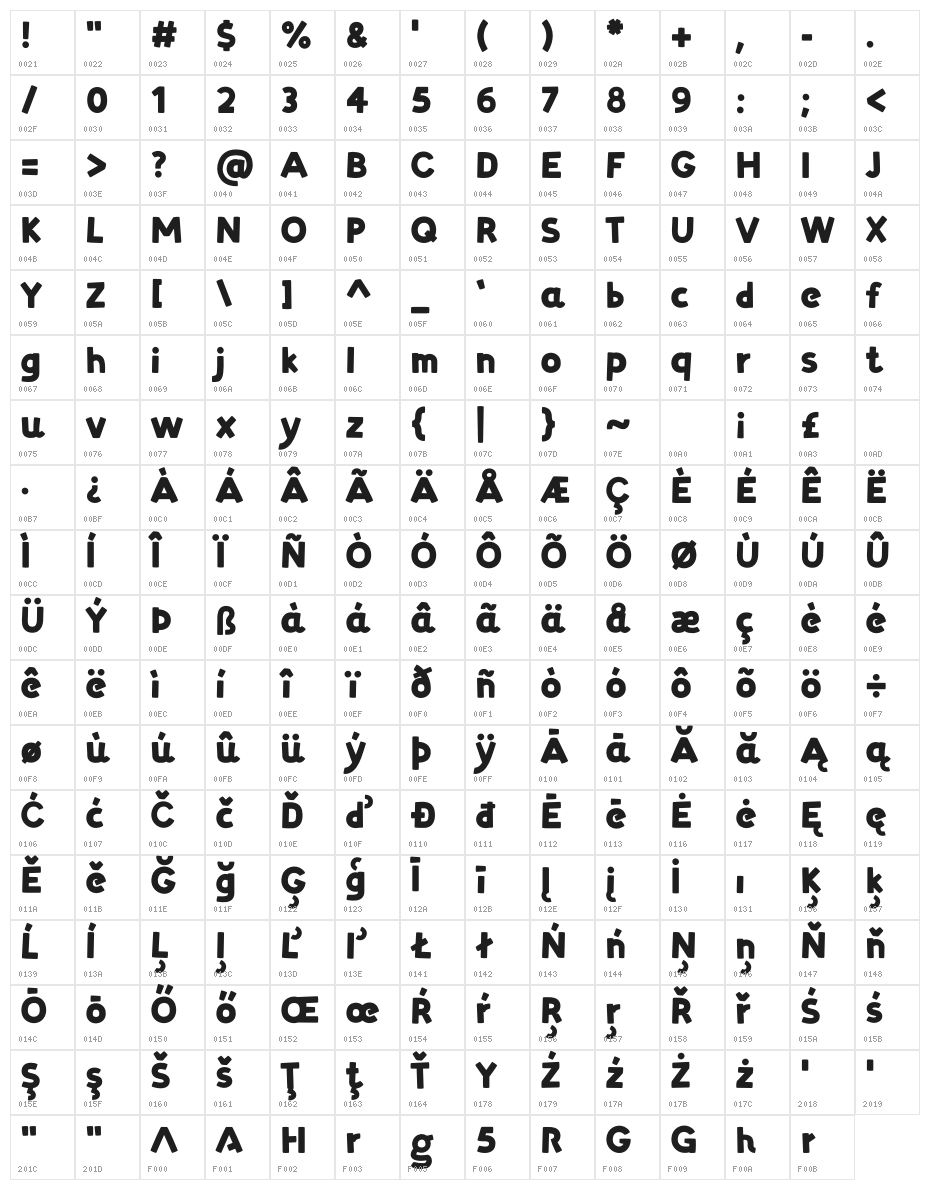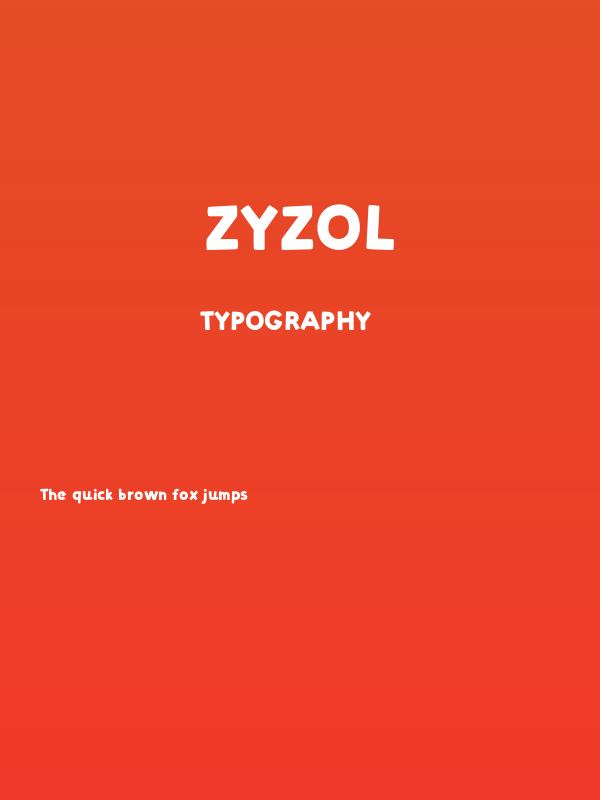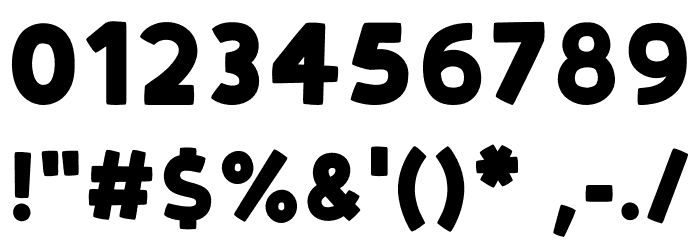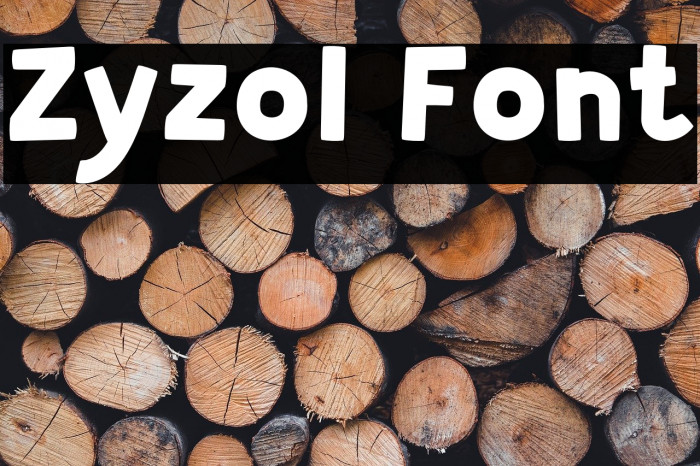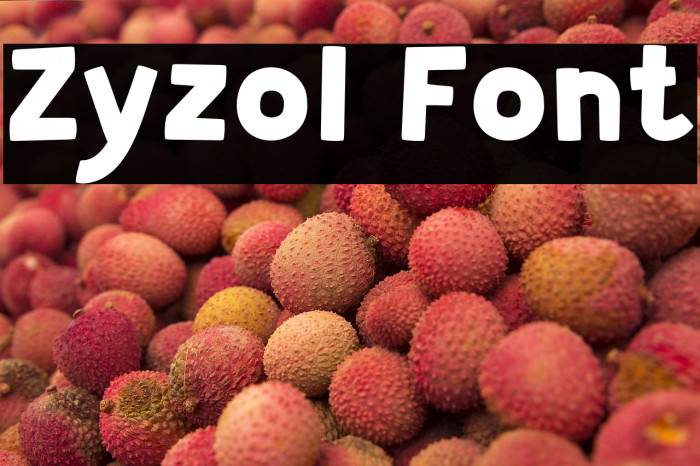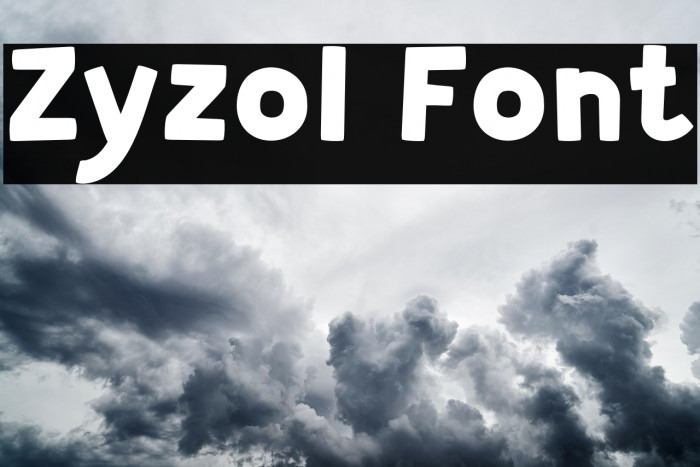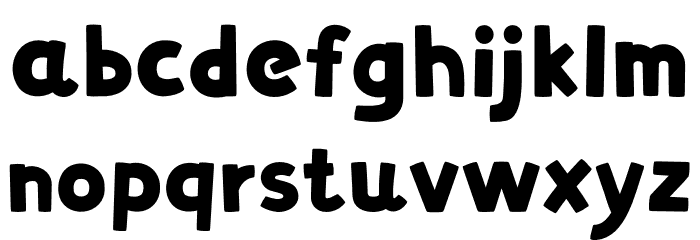
Zyzol Font
Zyzol Description
This font features a bold and playful design with rounded edges and a slightly irregular shape, giving it a friendly and approachable appearance. The characters are thick and substantial, making them highly legible and suitable for attention-grabbing headlines. The uppercase and lowercase letters maintain a consistent style, with a slight tilt adding to the whimsical feel. The numerals and special characters are designed to match the overall aesthetic, ensuring uniformity across all text elements. This font's unique style makes it ideal for creative projects that require a touch of fun and personality.
| Overall Style | Playful |
| Proposed Projects | Ideal for children's books, playful branding, posters, and creative advertising. |